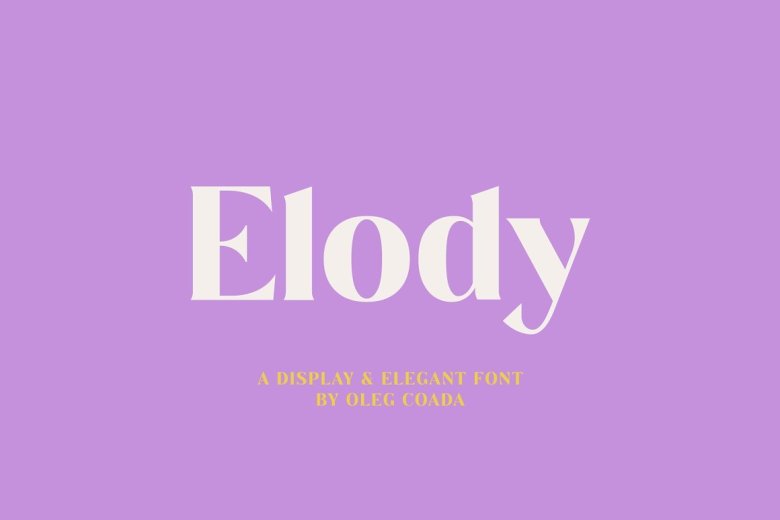
Elody Font
Elody is ideal for creating your articles thanks to its easy readability. The combination of sharp corners and soft turns in the characters offers alternatives to create different moods in your projects.
This font helps you discover the best mood for your projects, from body text to big headlines, classic to modern and bold looks.Well suited for books and magazines, magazine covers, editorials, headlines, websites, logos, invitations, branding, advertisements and more.